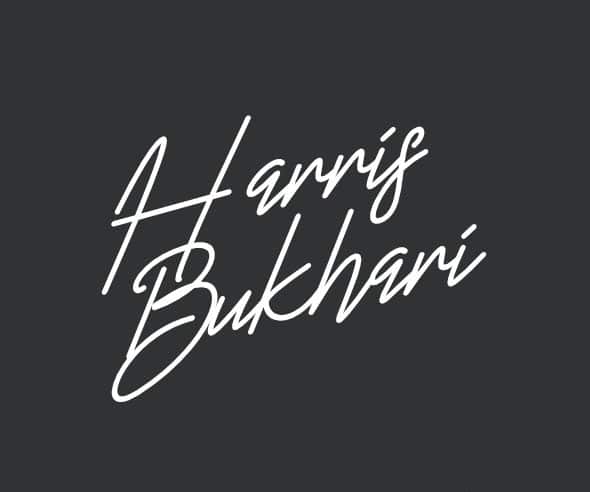
Harris Handwriting Font
Harris Handwriting Font was inspired from ink & tints manual handdrawn brush suitable uses for labeling, clothing, movie sceen, logo,film title, gigs, webfont, headline, tagline, signature